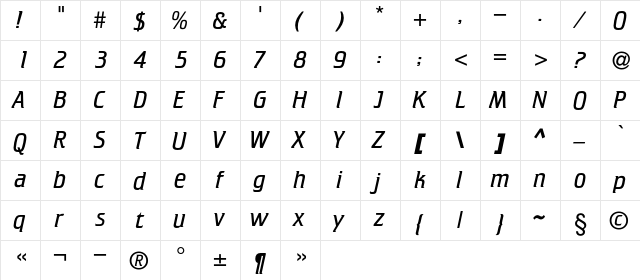
CricketLightC Regular
Design Context for CricketLightC Typeface
CricketLightC is a composed and adaptable typeface that performs quietly and consistently across a wide range of design contexts. Its slender proportions lend an understated elegance to any composition.